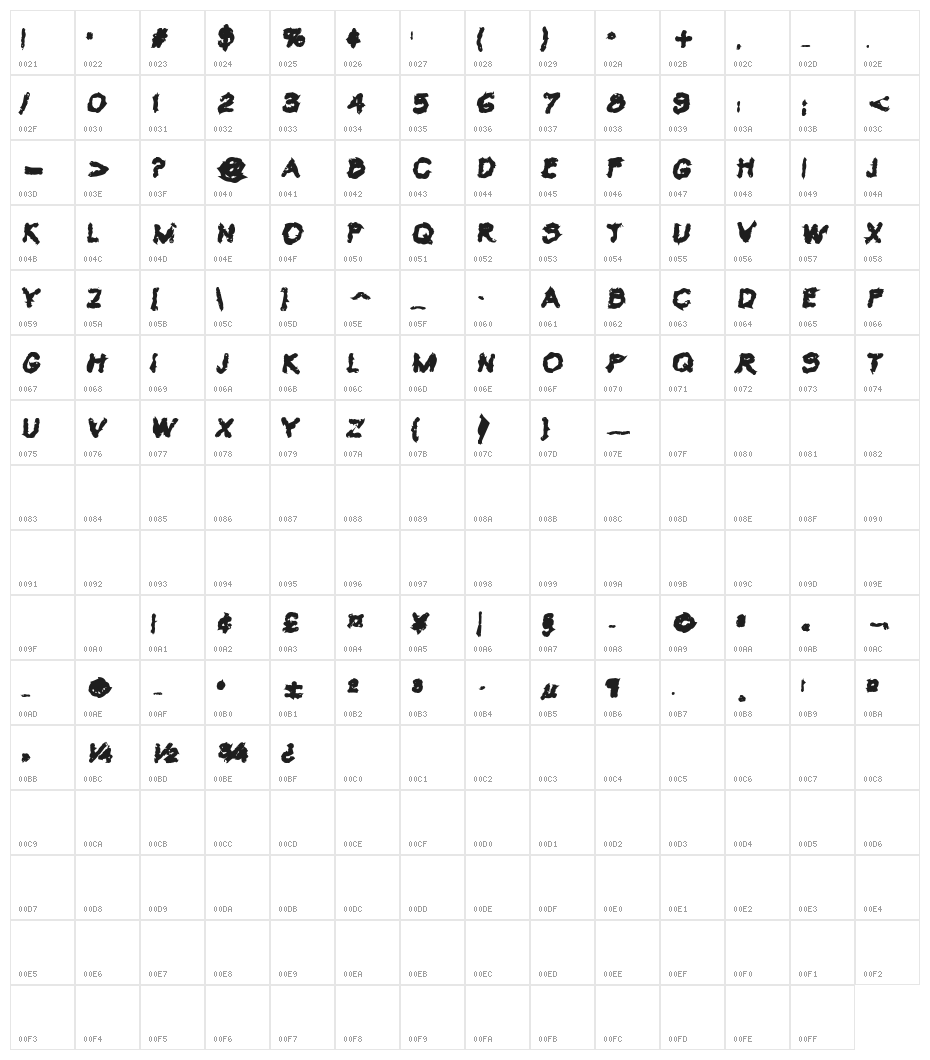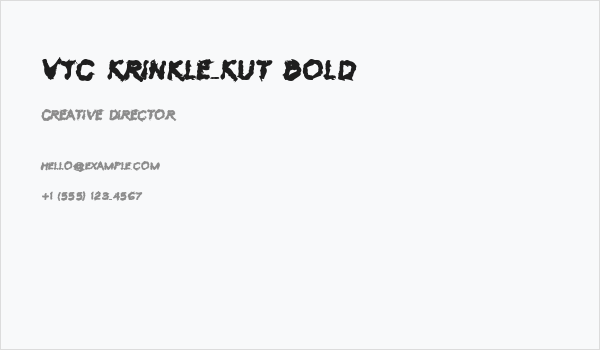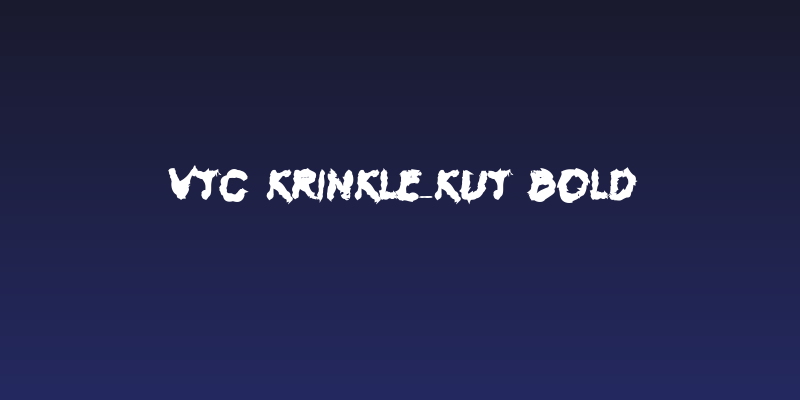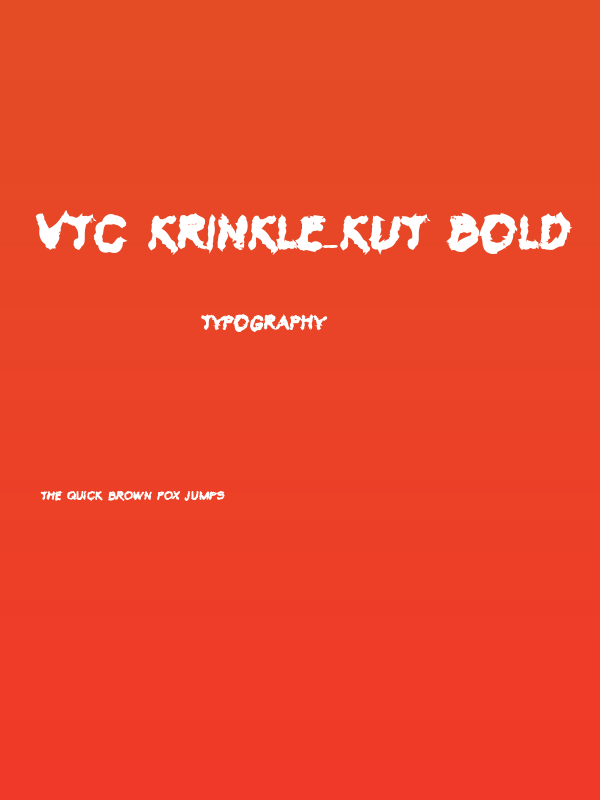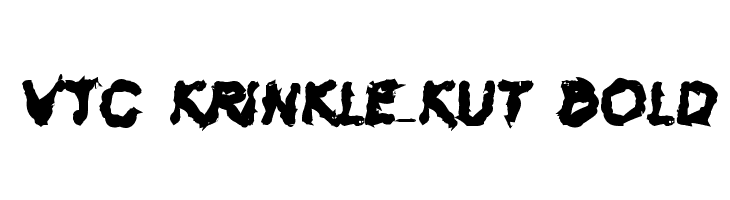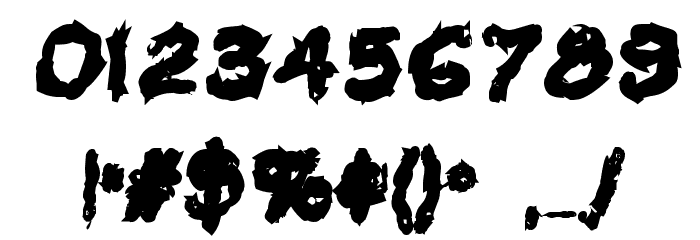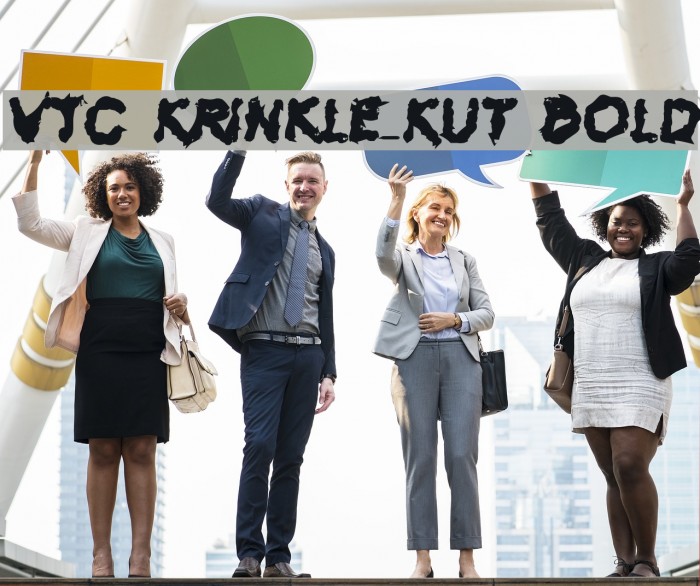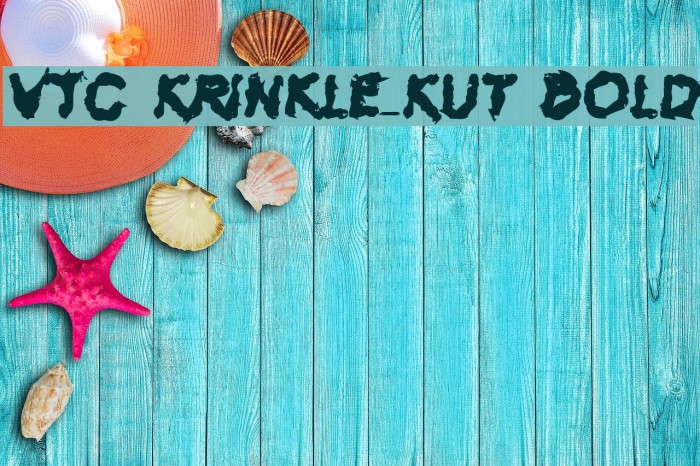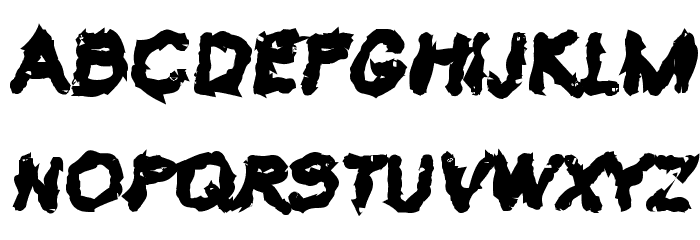
VTC Krinkle-Kut Bold Font
VTC Krinkle-Kut Bold Description
This font features a bold and rugged style, characterized by its jagged, uneven edges that give it a distressed, grunge-like appearance. The letters are thick and substantial, creating a strong visual impact. The irregular shapes and rough texture suggest a hand-cut or torn paper effect, making it ideal for designs that require a raw, edgy aesthetic. The font maintains legibility despite its unique style, with each character distinctly recognizable. It is well-suited for creative projects that aim to convey a sense of rebellion or nonconformity.
| Overall Style | Grunge, Edgy, Raw |
| Proposed Projects | Album covers, posters, streetwear branding, skateboarding graphics, and alternative event flyers. |